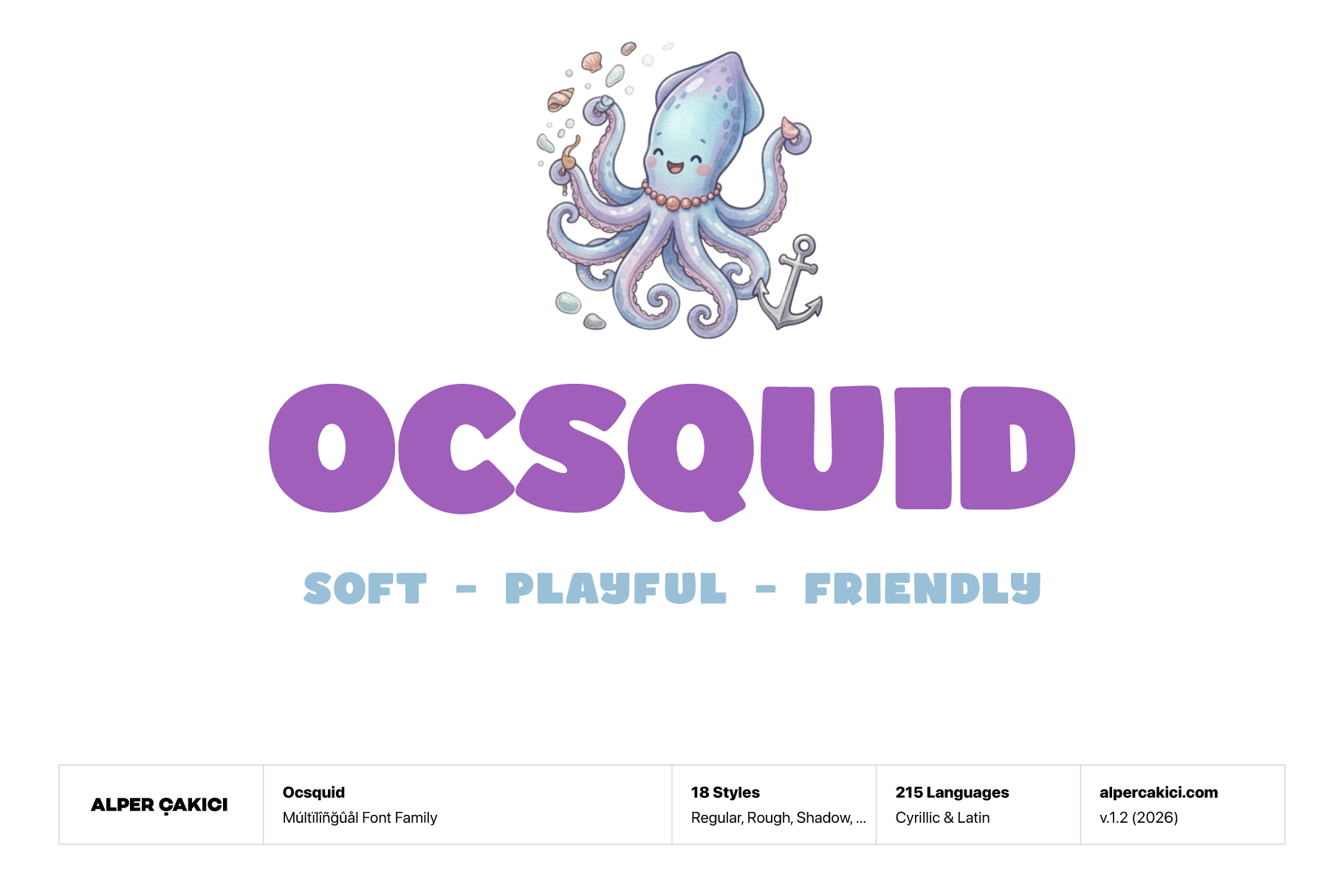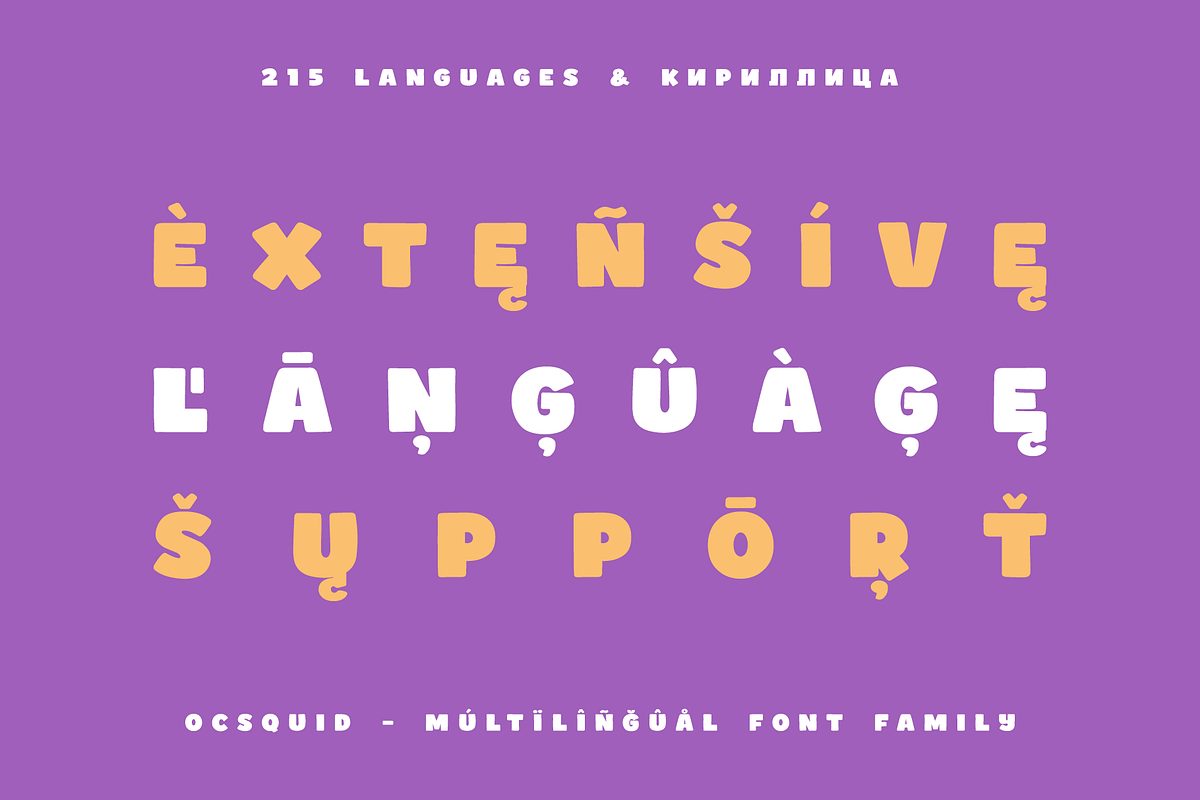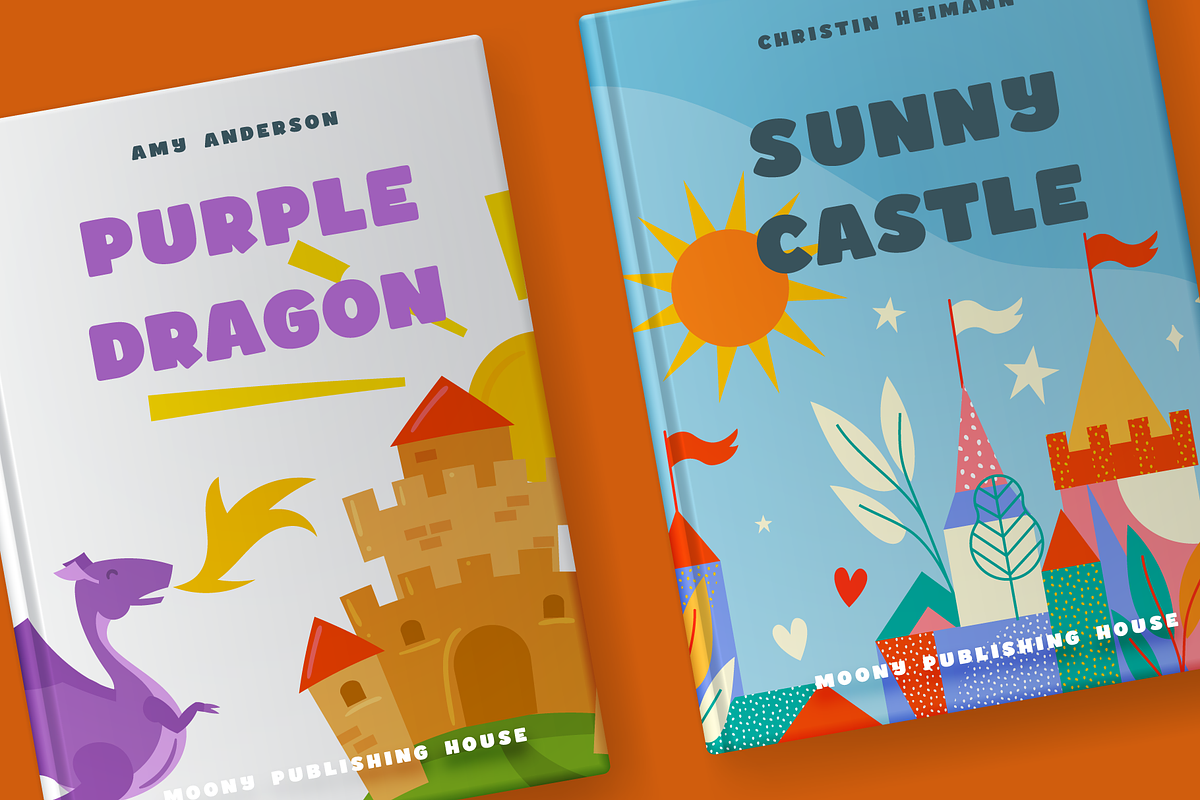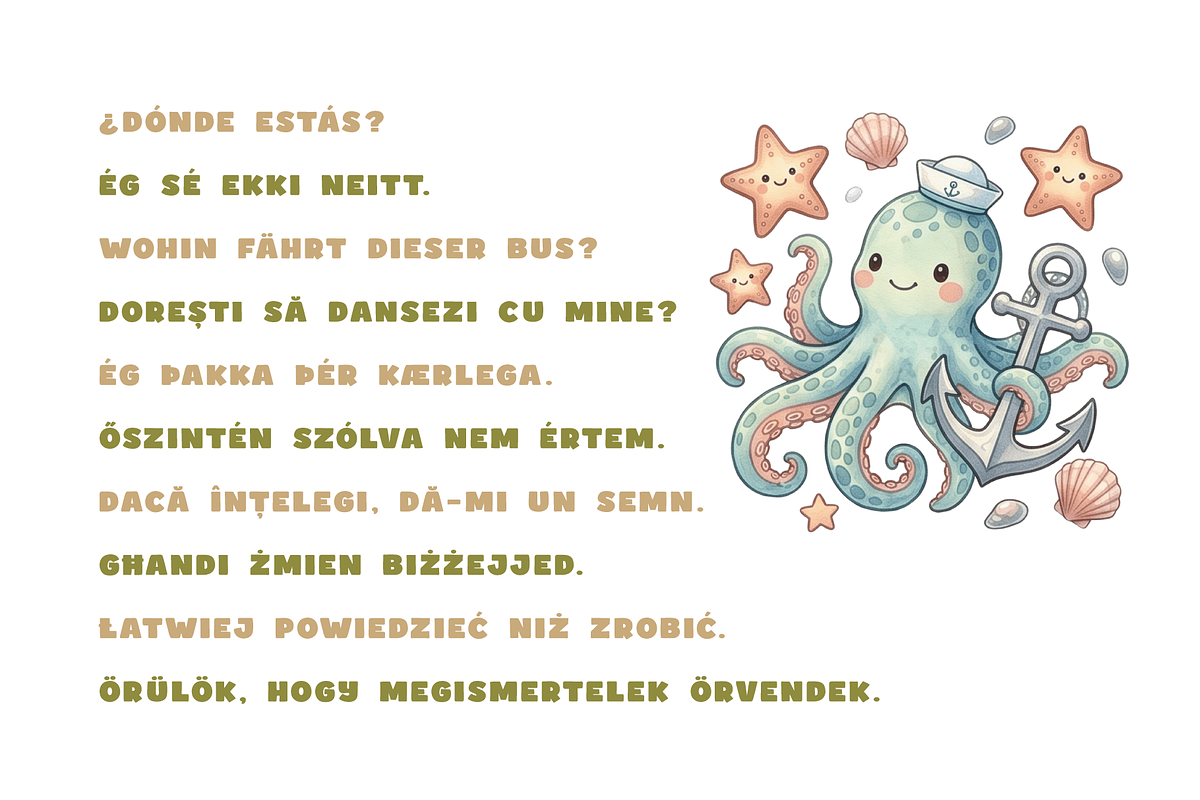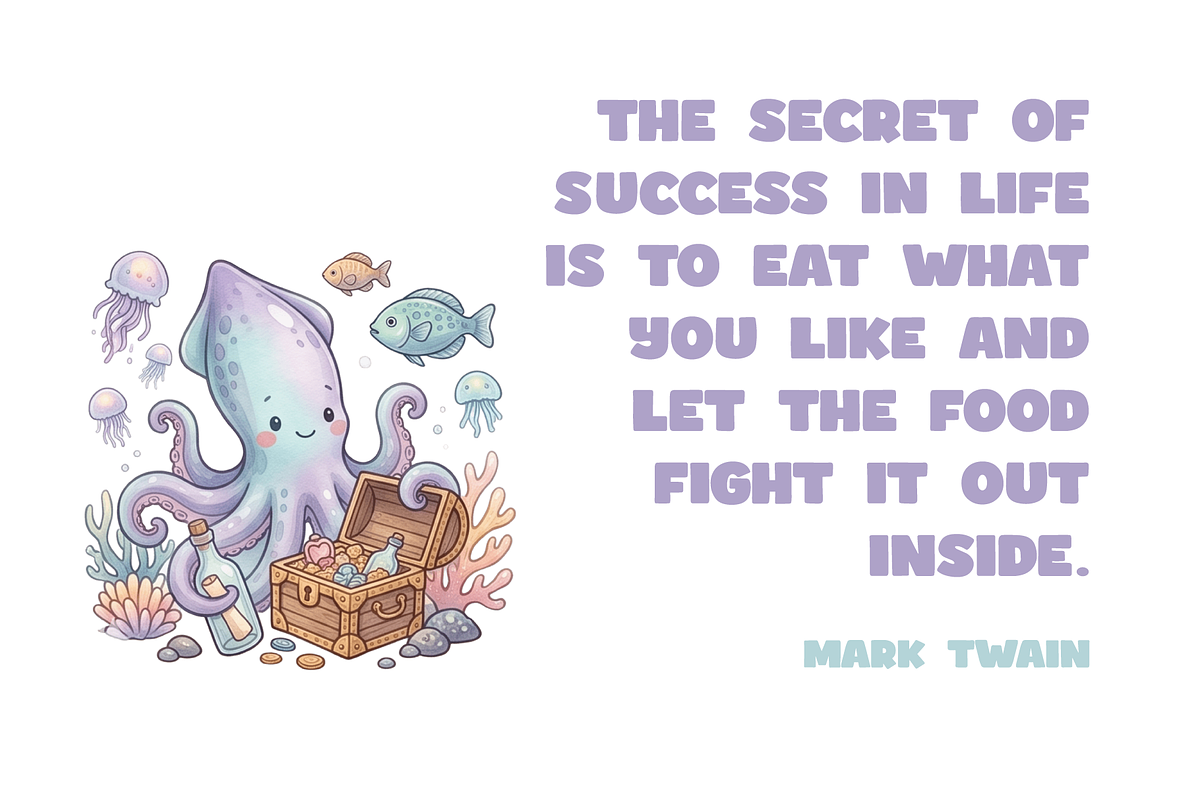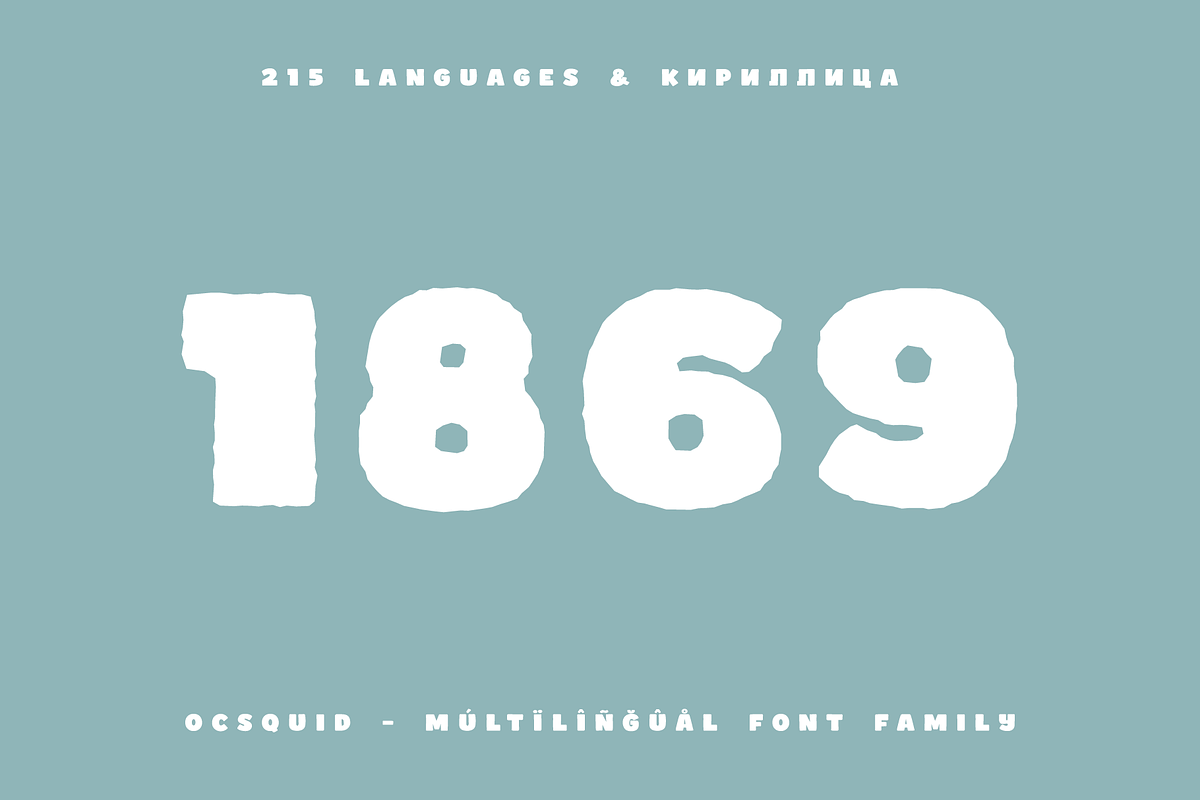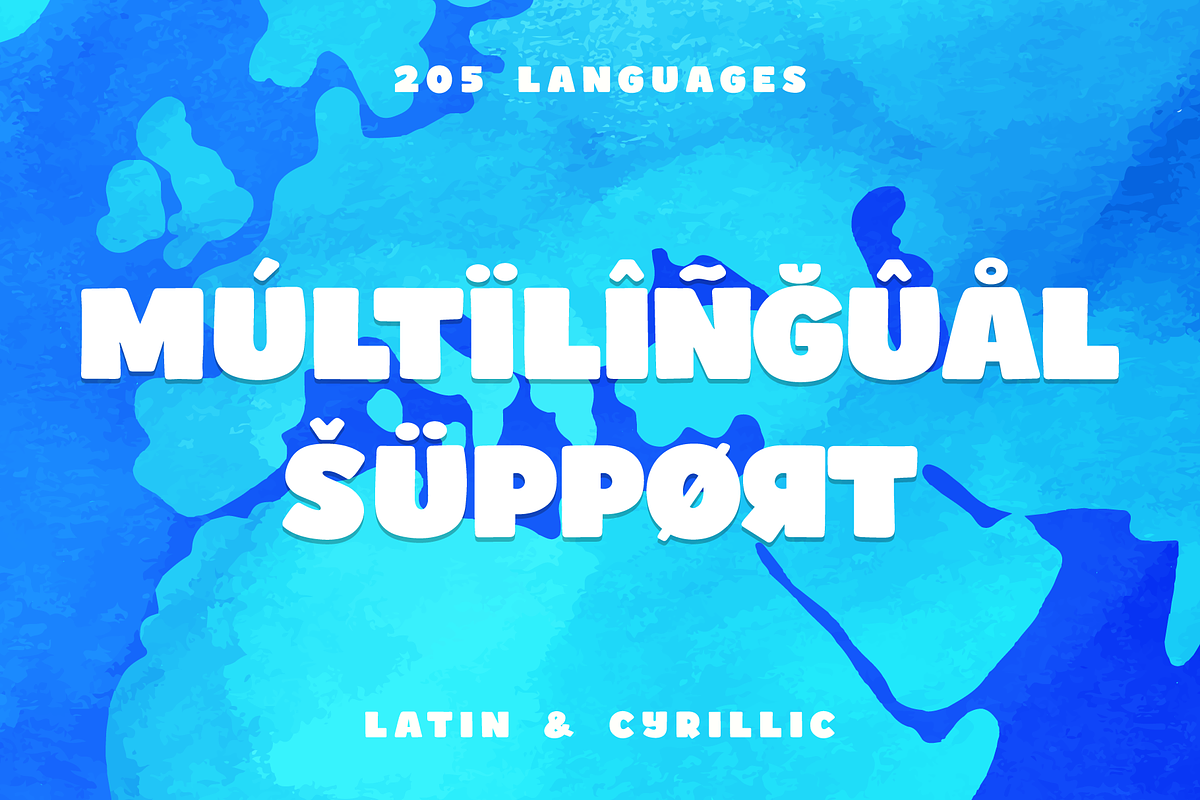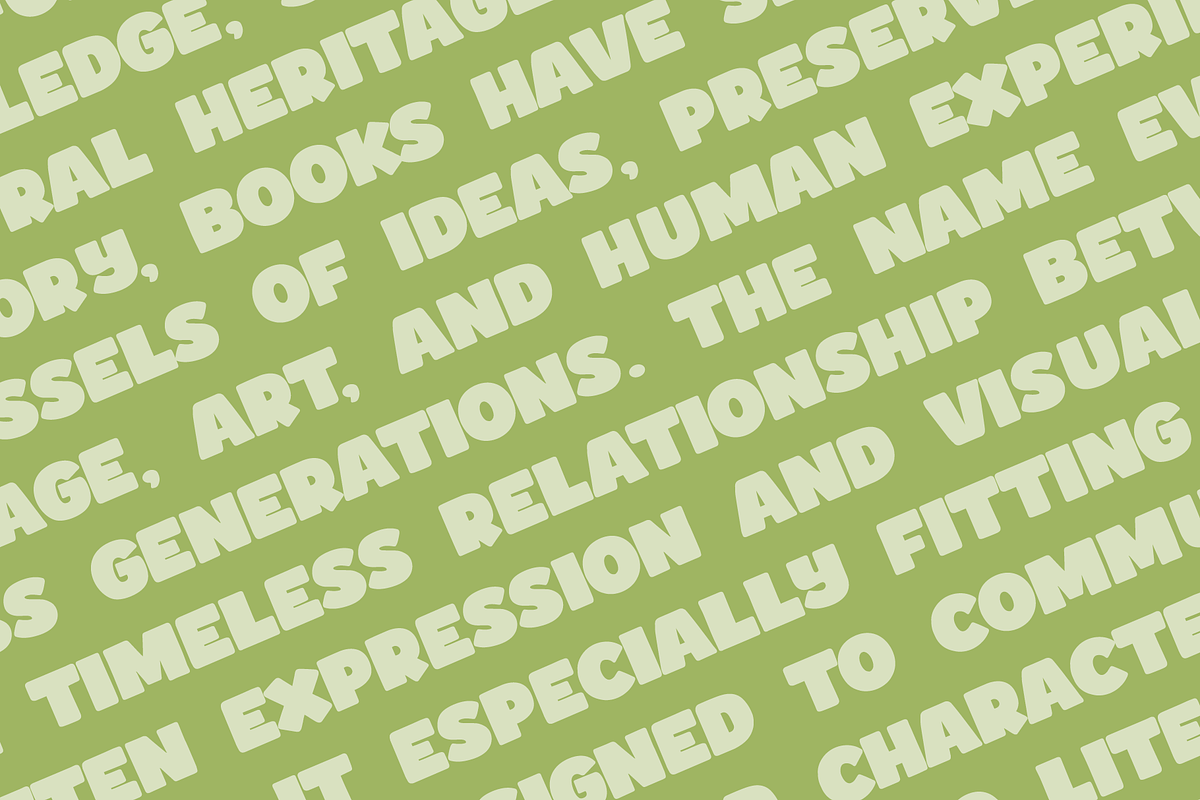
Ocsquid Fun Display Font
Ocsquid is a playful chunky sans serif typeface designed to bring warmth, personality, and bold visual impact to any project. With its soft curves, rounded proportions, and friendly letterforms, Ocsquid captures the joyful spirit of childhood creativity while maintaining excellent readability across a wide range of display applications.
The family includes 18 carefully crafted styles, giving designers exceptional creative flexibility. From the clean and versatile Regular and Italic to the handcrafted Rough, nostalgic Old, weathered Rusty, expressive Worn, bold Edgy, textured Dry, and decorative Outline and Shadow styles, Ocsquid adapts effortlessly to both polished and distressed design aesthetics.
Its chunky construction creates a strong visual presence in headlines, logos, packaging, posters, children's books, educational materials, toy branding, greeting cards, social media graphics, seasonal promotions, merchandise, and playful marketing campaigns. The rounded forms create an approachable, friendly personality, while the bold weight ensures outstanding legibility even at large display sizes.
Featuring 581 glyphs and supporting both Latin and Cyrillic alphabets, Ocsquid provides extensive multilingual coverage across 215 languages, making it an excellent choice for international branding and creative projects. Carefully balanced spacing and consistently crafted letterforms preserve readability while maintaining the typeface's distinctive handcrafted charm.
Whether you're designing cheerful branding, family-oriented products, playful packaging, comic-inspired artwork, festival graphics, children's content, or eye-catching display typography, Ocsquid delivers a bold, friendly, and unmistakably fun typographic experience.